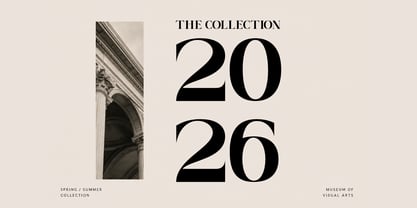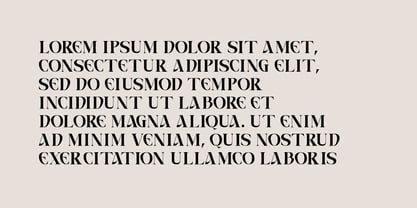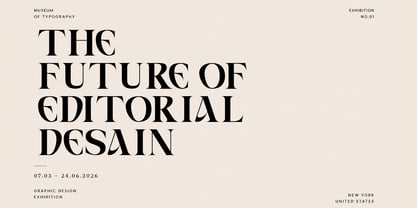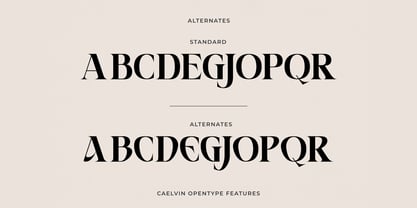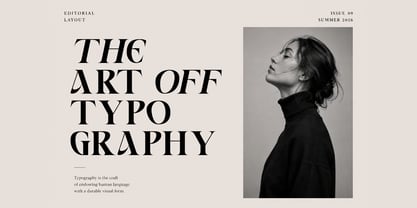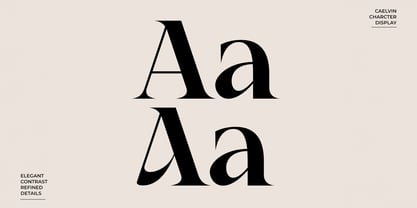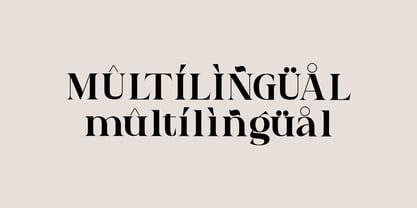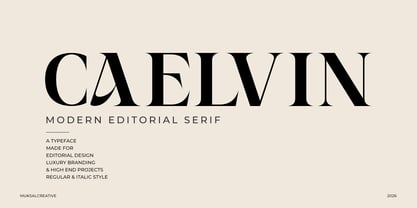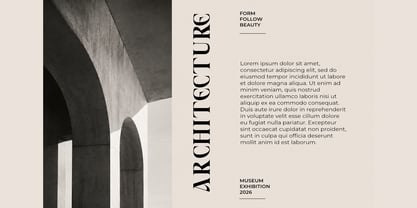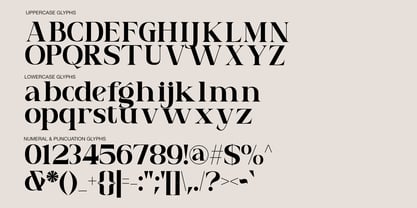
Caelvin
by Muksal Creatives
The Caelvin Font Family was designed by Muksalmina and published by Muksal Creatives. Caelvin contains 2 styles and family package options. More about this family
CAELVIN is a refined modern editorial serif designed to express elegance, sophistication, and timeless luxury. Featuring two carefully crafted styles—Regular and Italic—it offers the perfect balance between classic refinement and contemporary fashion aesthetics.
The Regular style delivers clean, high-contrast letterforms that create a confident and luxurious presence, while the Italic style introduces graceful movement and expressive character, making it ideal for adding emphasis and elegance to any composition.
Inspired by luxury fashion editorials, premium branding, and contemporary publishing, CAELVIN is perfect for designers who want to create distinctive and memorable visual identities. Every character is thoughtfully designed with refined proportions, stylish alternates, and elegant ligatures to enhance your typography effortlessly.
Whether you're designing luxury logos, magazine headlines, cosmetic packaging, perfume labels, wedding stationery, or sophisticated branding, CAELVIN provides the versatility and elegance needed to make every project stand out.
Designers: Muksalmina
Foundry: Muksal Creatives